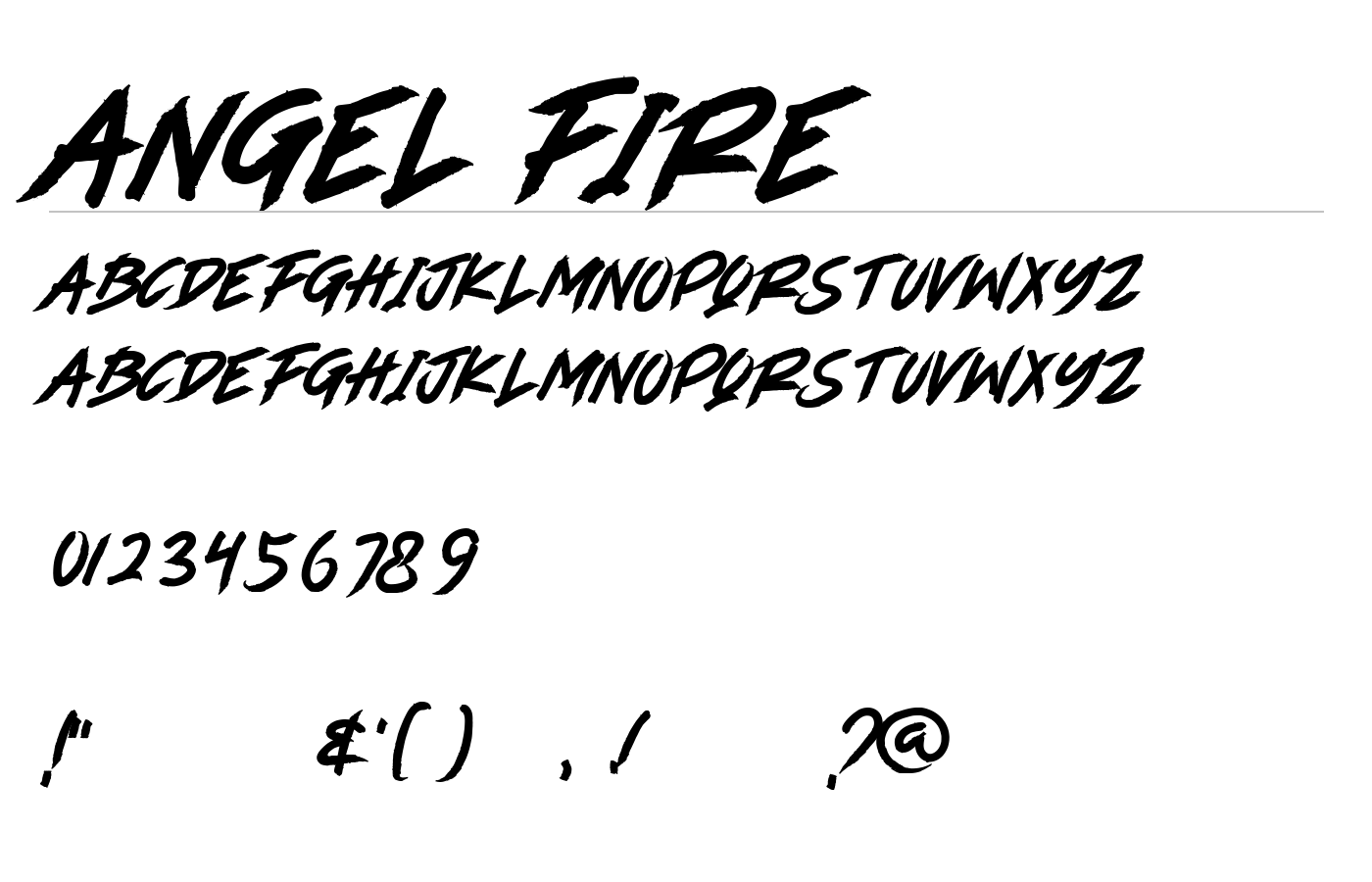
Angel Fire is a bold, energetic script font with a brushstroke texture that gives it a dynamic, hand-painted feel. Its all-caps design with sharp, irregular edges and lively slant conveys a sense of urgency and motion, making it perfect for headlines, posters, and branding that needs a striking, adventurous vibe. This font works well where you want to capture attention with a raw, expressive style that feels both modern and rugged.
ANGEL FIRE Font
About ANGEL FIRE Font